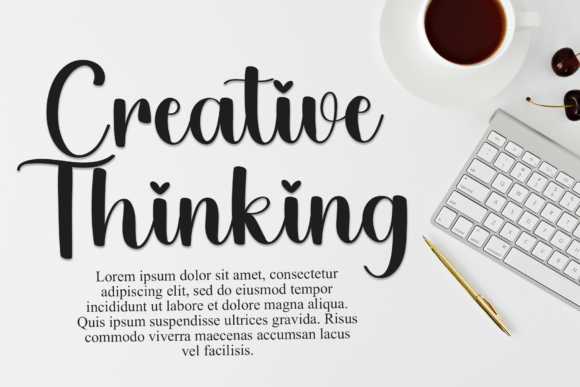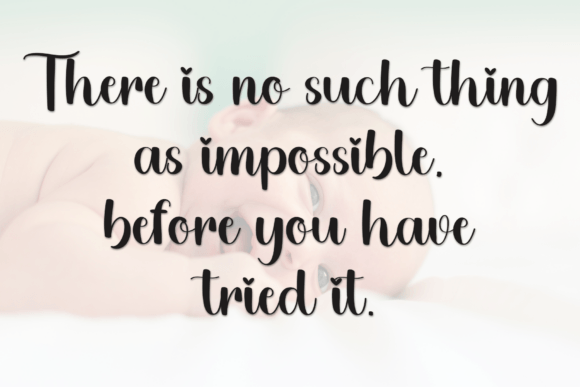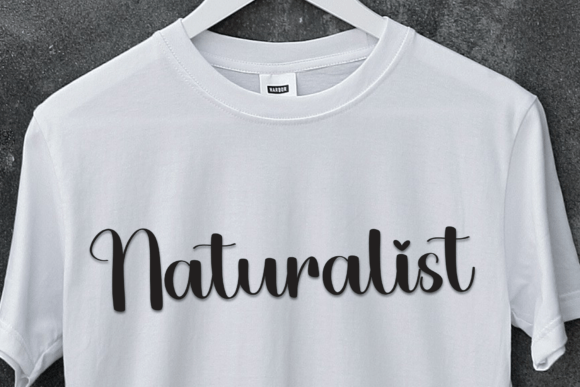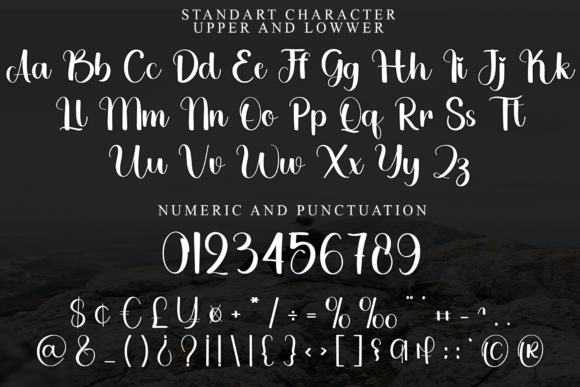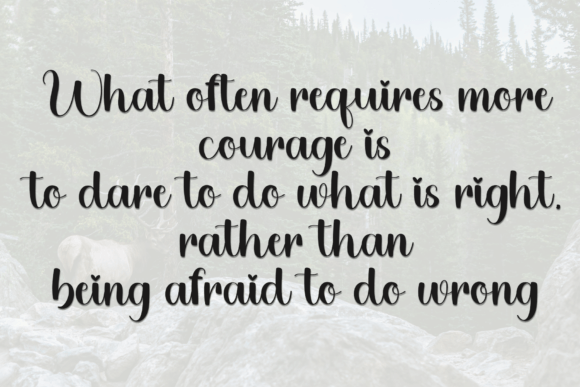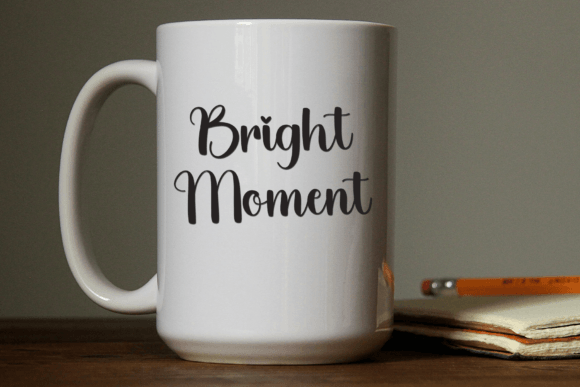
Introducing Handmade Present Font: The Perfect Choice for Personal and Creative Projects
Are you looking for a font that can add a touch of warmth and personality to your designs? Look no further than Handmade Present Font, a charming handwritten font that feels like it was written with love. Its playful, natural style makes it perfect for cards, invitations, and creative projects that need a friendly, personal touch.
The Charm of Handmade Present Font
Handmade Present Font is a unique and captivating font that is sure to capture the hearts of designers and crafters alike. Its handwritten style gives it a personal and intimate feel, making it perfect for projects that require a human touch. The font’s playful and natural style is reminiscent of handwritten notes and letters, making it an excellent choice for:
- Cards: Birthdays, weddings, anniversaries, and other special occasions.
- Invitations: Parties, baby showers, graduations, and other events.
- Creative projects: Scrapbooking, journaling, and other crafty endeavors.
Key Features of Handmade Present Font
So, what makes Handmade Present Font so special? Here are some of its key features:
- Handwritten style: A unique and personal touch that sets it apart from other fonts.
- Playful and natural: A font that feels like it was written with love and care.
- Perfect for personal projects: Cards, invitations, and creative projects that need a friendly touch.
- Easy to read: A clear and legible font that’s easy on the eyes.
Why Choose Handmade Present Font?
With so many fonts to choose from, why should you choose Handmade Present Font? Here are just a few reasons:
- Uniqueness: Handmade Present Font is a one-of-a-kind font that will set your designs apart from the rest.
- Emotional connection: The font’s handwritten style creates an emotional connection with the reader, making your designs more relatable and engaging.
- Versatility: Perfect for a wide range of projects, from cards and invitations to creative crafts and DIY projects.
Tips for Using Handmade Present Font
Here are some tips for getting the most out of Handmade Present Font:
- Pair it with other fonts: Combine Handmade Present Font with other fonts to create a unique and visually appealing design.
- Experiment with colors: Try out different colors and textures to add depth and interest to your designs.
- Keep it simple: Don’t overcomplicate your design – let the font speak for itself.
Handmade Present Font is a charming and captivating font that’s perfect for designers and crafters looking to add a personal touch to their projects. Its unique handwritten style, playful and natural feel, and versatility make it an excellent choice for cards, invitations, and creative projects. So why not give it a try and see the difference it can make in your designs?
Whether you’re a professional designer or a crafty DIY enthusiast, Handmade Present Font is sure to become a favorite in your font collection. So go ahead, get creative, and make your designs truly special with Handmade Present Font!